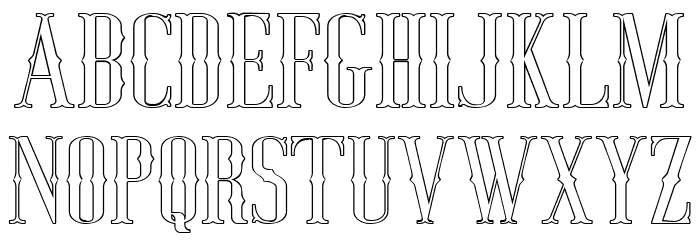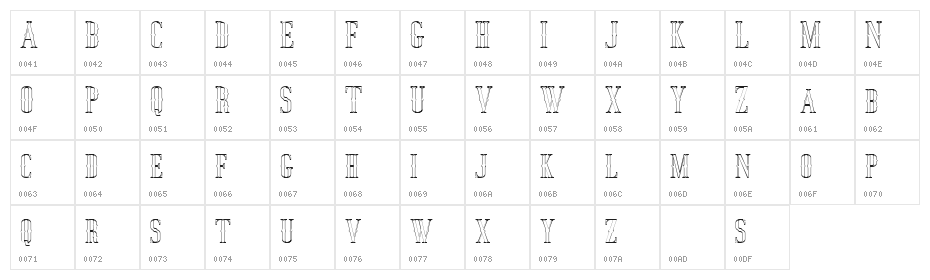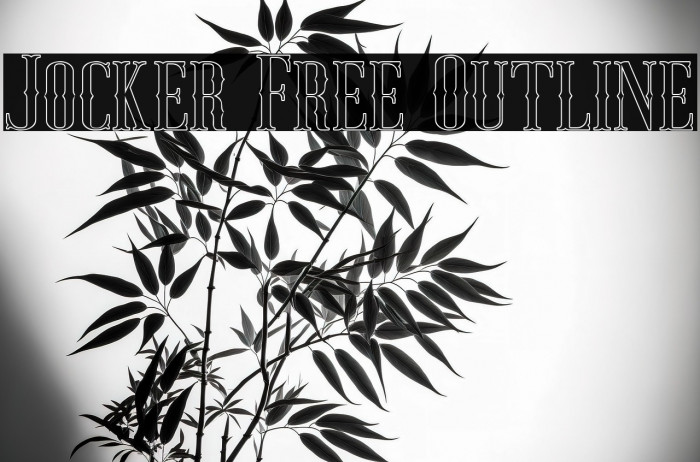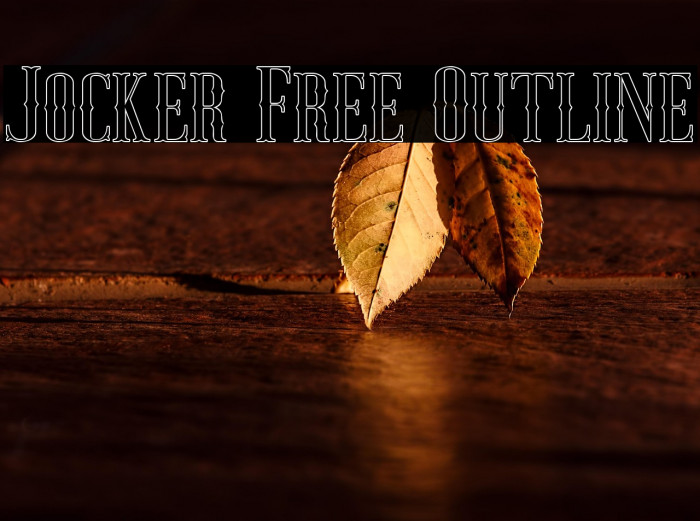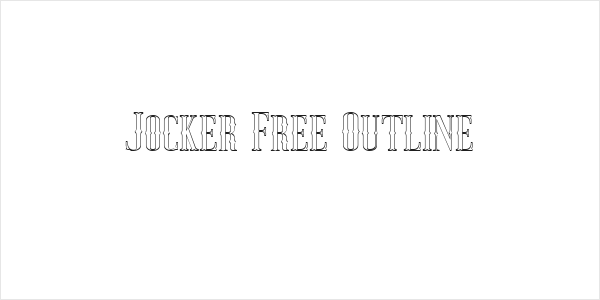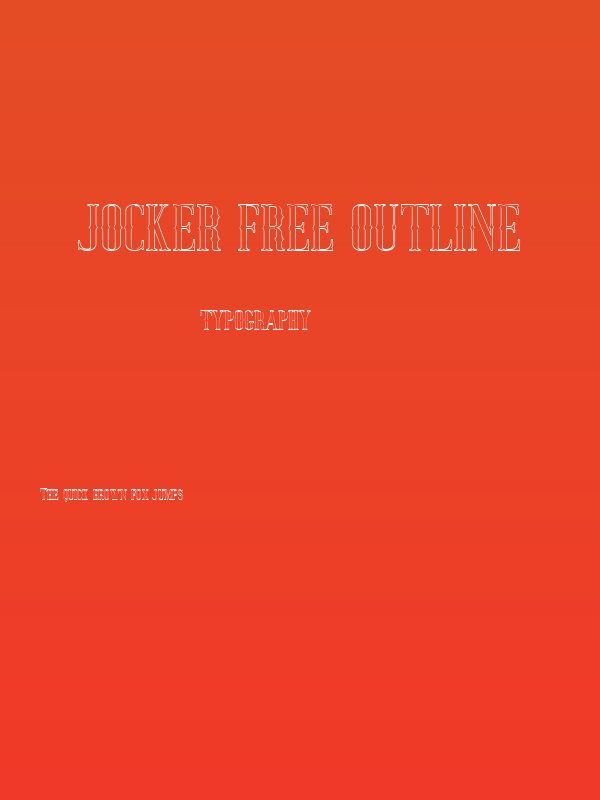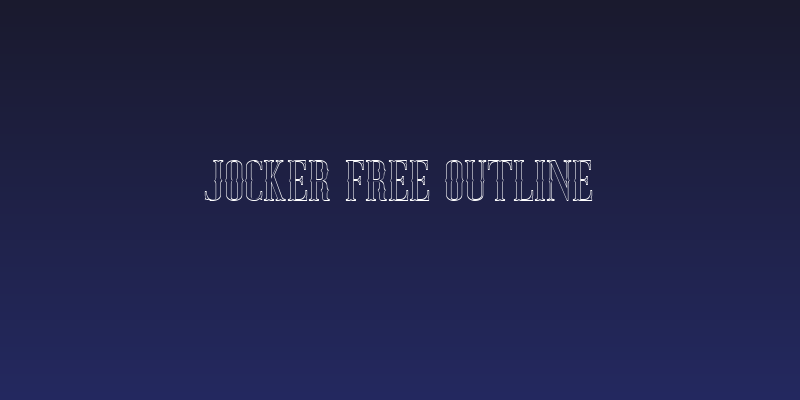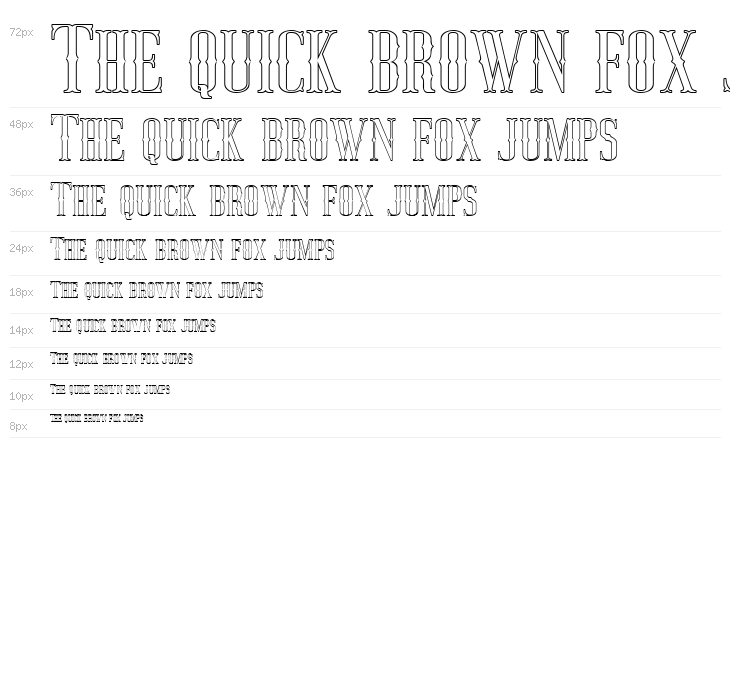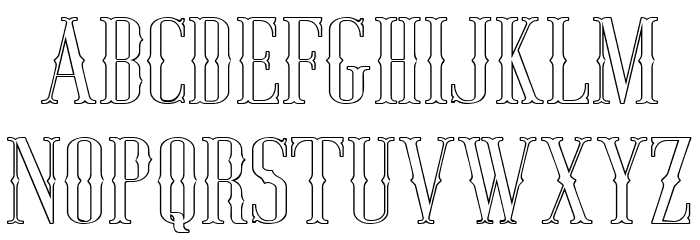
Jocker Free Outline Font
Jocker Free Outline Description
This font features a unique outline style with a decorative flair. Each letter is designed with a double-line structure, creating an eye-catching effect that stands out. The uppercase letters are tall and narrow, with sharp angles and a slightly vintage feel. The overall design is reminiscent of classic circus or carnival typography, making it ideal for projects that require a bold and playful aesthetic. The spacing between characters is consistent, allowing for easy readability despite the intricate design. This font is perfect for creating striking headlines, posters, or any design that seeks to capture attention with a touch of nostalgia.
| Proposed Projects | Ideal for posters, headlines, event invitations, and branding that requires a bold, vintage look. |